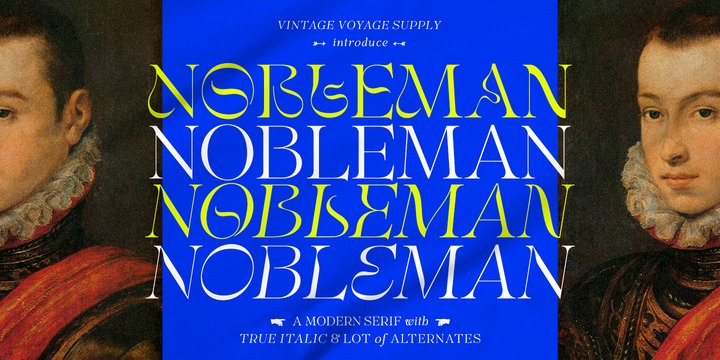
VVS Nobleman Font
Proud to Introduce you a Nobleman — classic serif full of modern mood. Nobleman is the result of a searching of basic serif with some interesting elements which bring this stylish modern look in your typographic. The high contrast between thick and thin strokes gives Nobleman so stylish look. Full of opentype features as an alternates, ligatures, fractions, old style and tabular figures and the Small caps. Nobleman has a True Italic style and special style for the small body texts which one has more softly contrast strokes to being more readable.
You can be classic and conservative with basic set, a little bit more playing with few alternates or absolutely wild-stylish with full of alternates. It makes the Nobleman is very useful font.
Up to 9 styles of alternates for each letter and 46 ligatures. Additional style of “g” and “y” letters and of course Michelangelo’s manicule symbol.
Multilingual
Nobleman can be used for both as for headers or sub-headers, and for body texts. In the Magazines, Logo’s, Brochures, Posters, Web-Services, Vlogs etc.